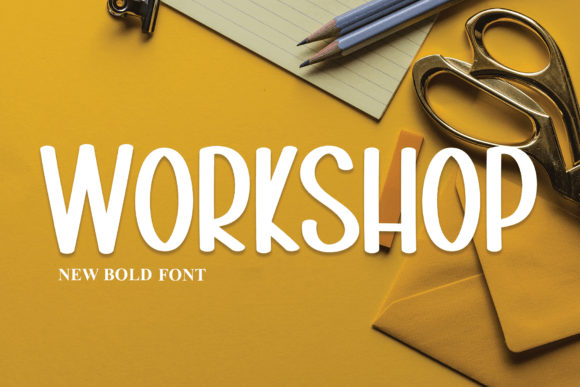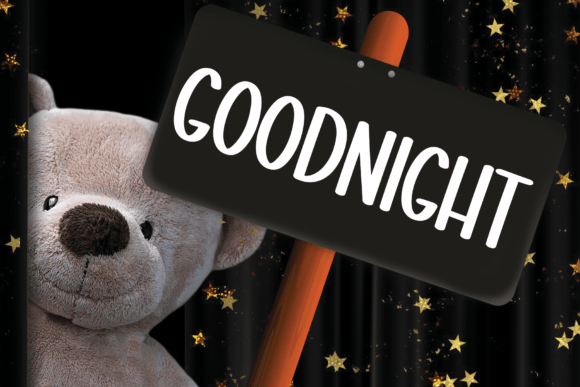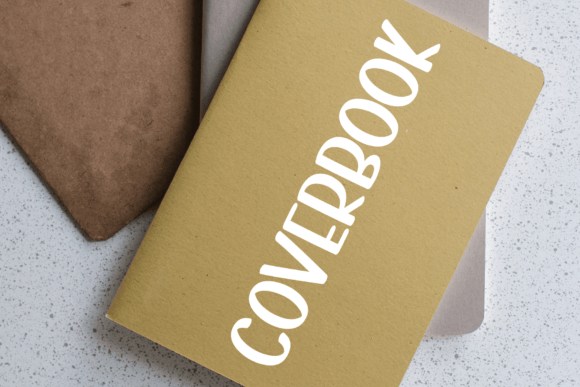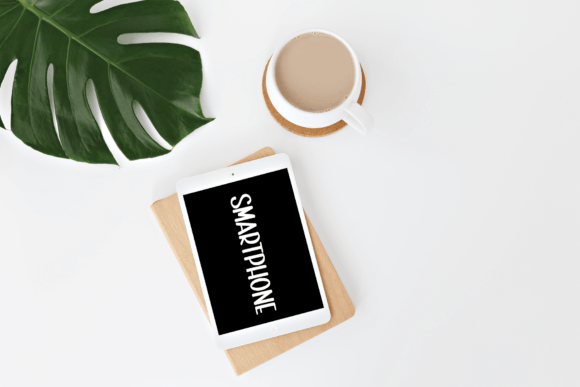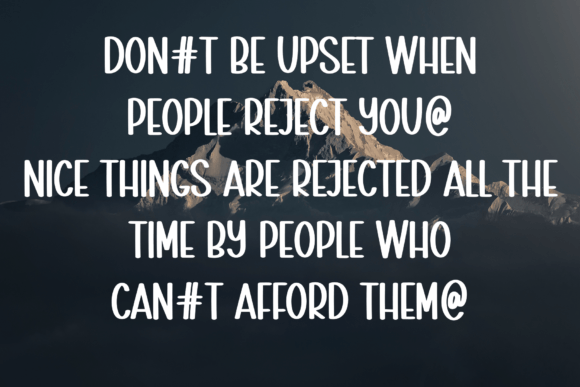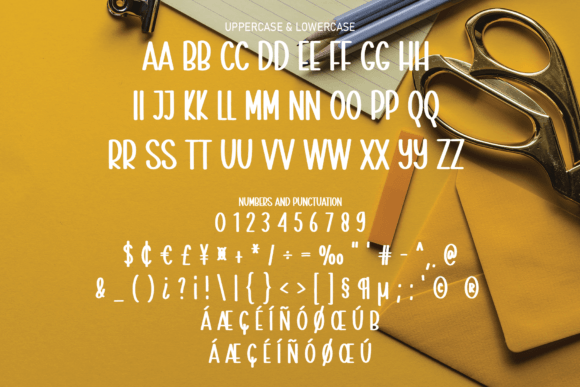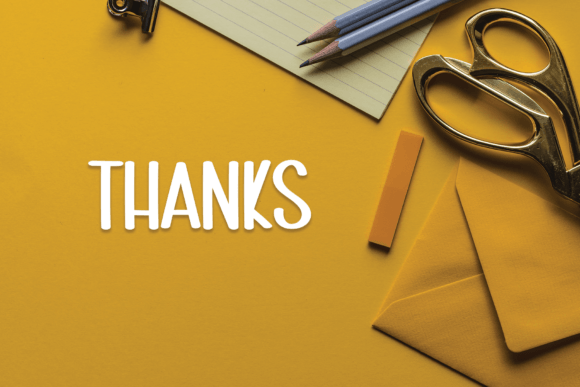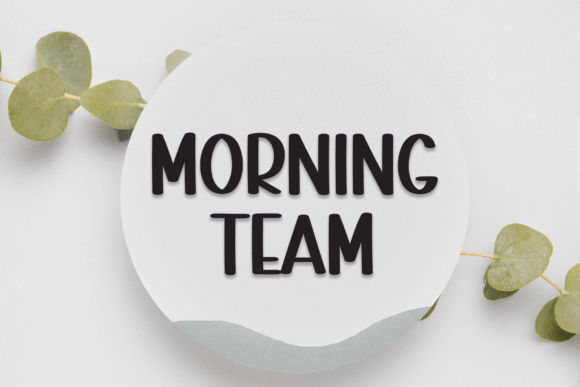
Workshop Font
About Workshop Font
Workshop is a striking, all-caps display font designed to make a bold statement with just the right touch of trendiness. This versatile typeface is well-suited for a range of creative applications, adding a contemporary edge to your projects. Whether you’re engaged in crafting, digital design, presentations, or crafting personalized greeting cards, Workshop proves to be the ideal font for making a powerful visual impact.
The bold, uppercase characters of Workshop make it stand out, commanding attention and creating a strong visual presence. Its clean and modern design ensures readability while adding a touch of sophistication to your creations. This font is a perfect choice for making a statement in crafting projects, allowing you to emphasize key elements with its bold and trendy style.
Digital designers can leverage Workshop to infuse a modern and edgy vibe into their creations. Whether you’re designing sleek graphics or crafting a contemporary user interface, this font adds a touch of trendiness that elevates the overall aesthetic. The all-caps design ensures that every letter contributes to a cohesive and impactful visual experience.
Presentations benefit from the bold and trendy look of Workshop, making key points and headlines visually striking. The font’s versatility allows it to seamlessly integrate into various design contexts, ensuring that your slides are not only informative but also visually appealing.
When it comes to greeting card making, Workshop brings a modern and stylish flair to your heartfelt messages. The font’s bold characters contribute to the overall design, making your cards stand out and leave a lasting impression.
In essence, Workshop is more than just a font; it’s a design tool that empowers creators to make a bold and contemporary statement. Whether you’re crafting, designing digitally, presenting, or creating personalized cards, Workshop is the perfect choice for those seeking a versatile and trendy display font. Let Workshop be the key element that adds a touch of modernity and sophistication to your creative projects.